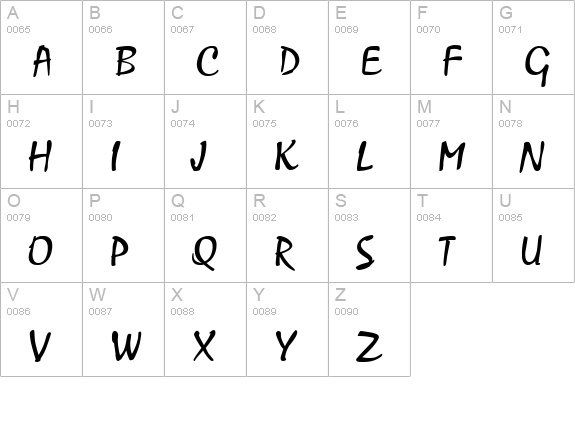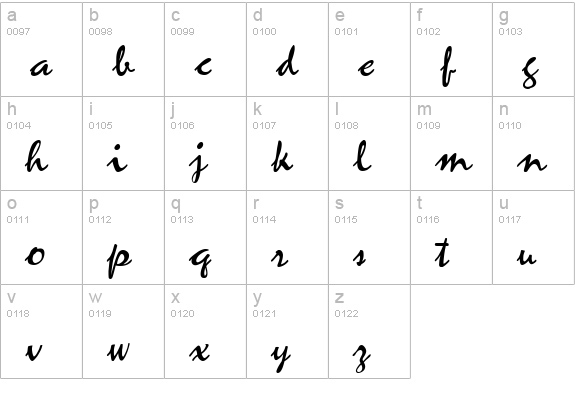
Zephyr-Regular Font Details
Zephyr-Regular is the standard, neutral variant in the Zephyr typeface family \xE2\x80\x94 well suited to general body text, paragraphs, and standard typographic work.
Zephyr-Regular font is a modern and versatile typeface that exudes elegance and sophistication. With its clean lines and balanced proportions, this font is perfect for a wide range of design projects, from branding to editorial design. Zephyr-Regular is a timeless and classic font that adds a touch of refinement to any project. Best of all, Zephyr-Regular is available for free download at FontsMarket.com. This means that you can easily access this high-quality font without having to worry about any extra costs. Whether you're a seasoned designer or just starting out, Zephyr-Regular is a fantastic addition to your font collection. Download it today and elevate your designs with this exceptional typeface.